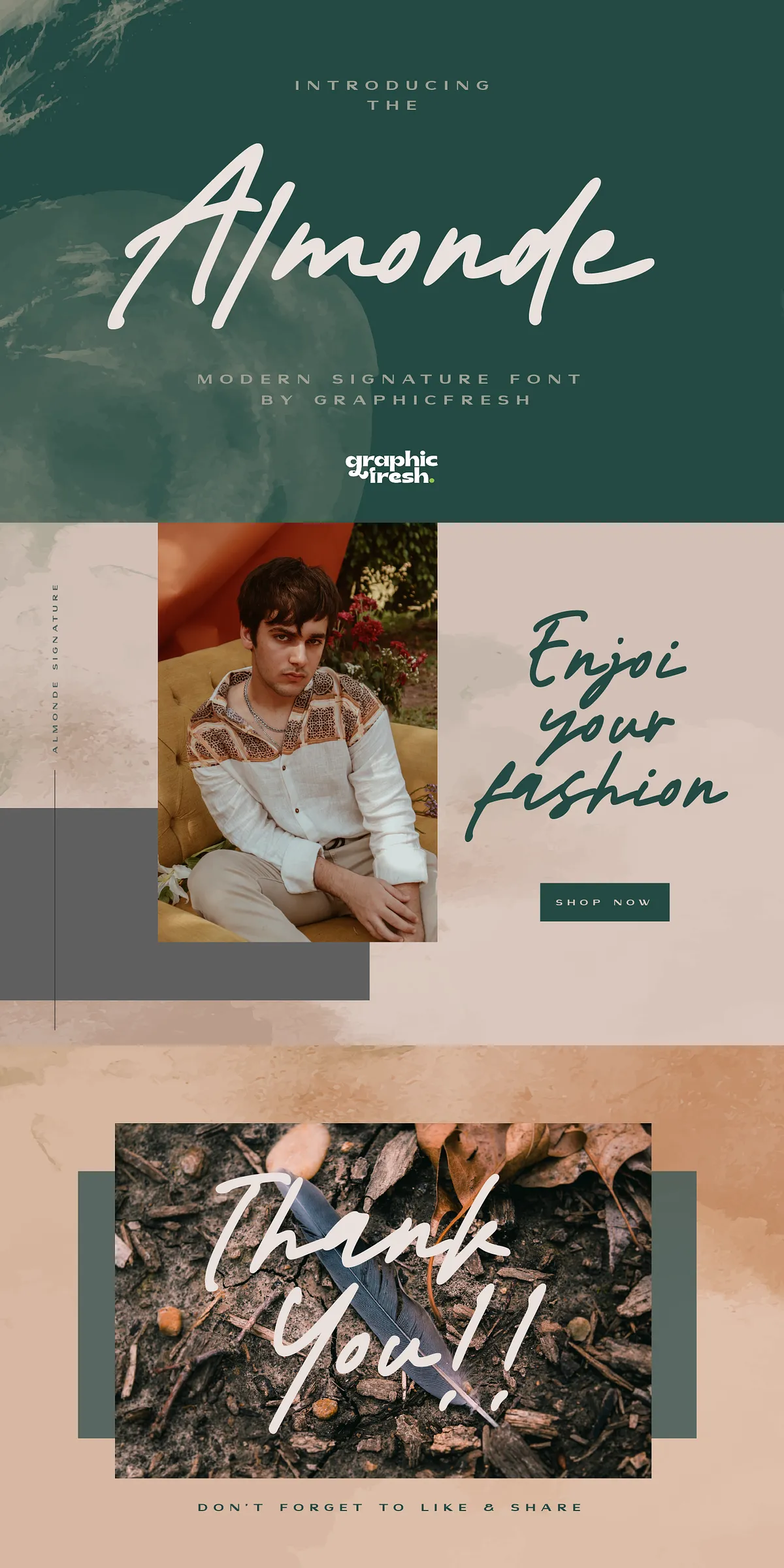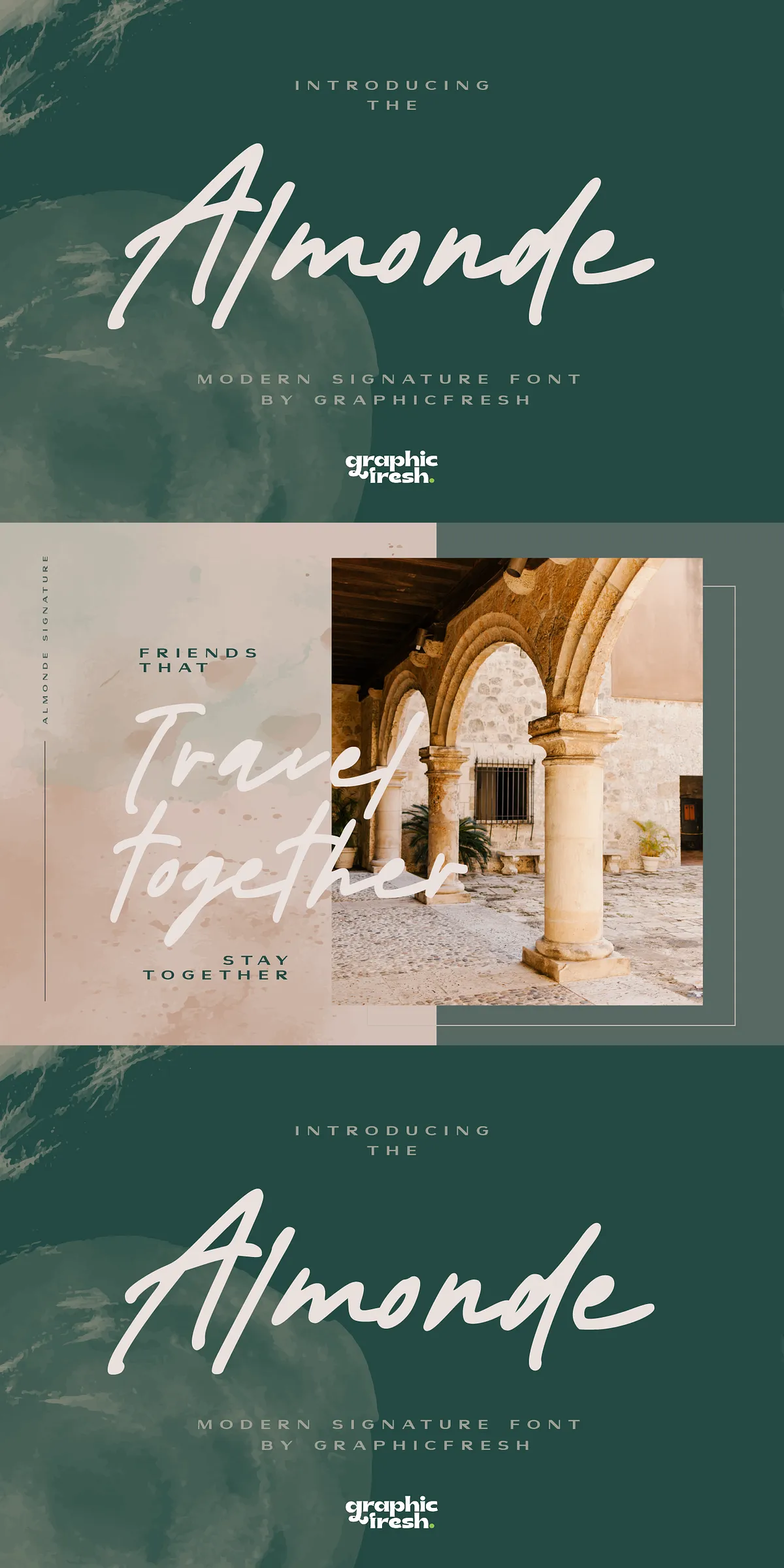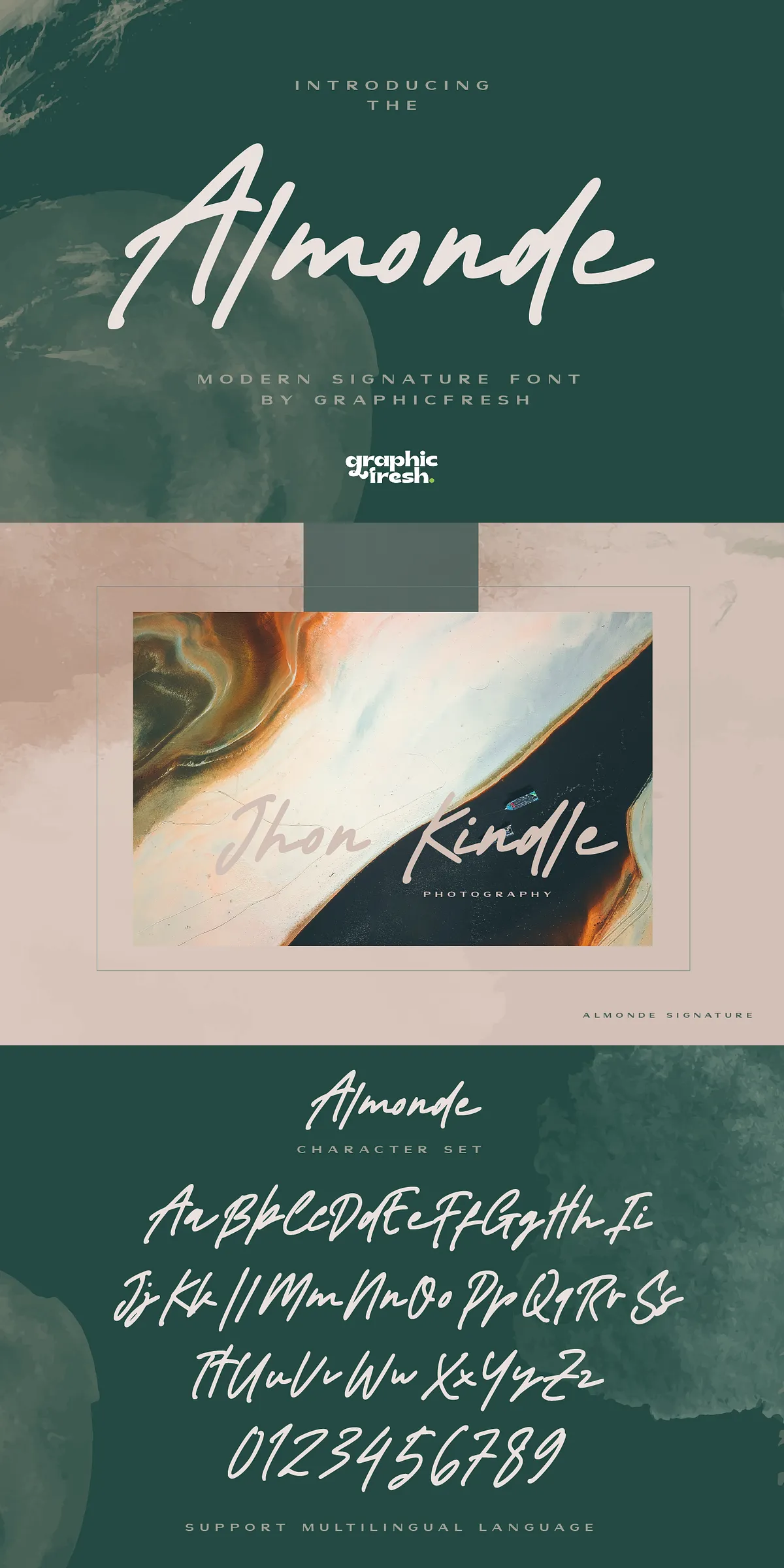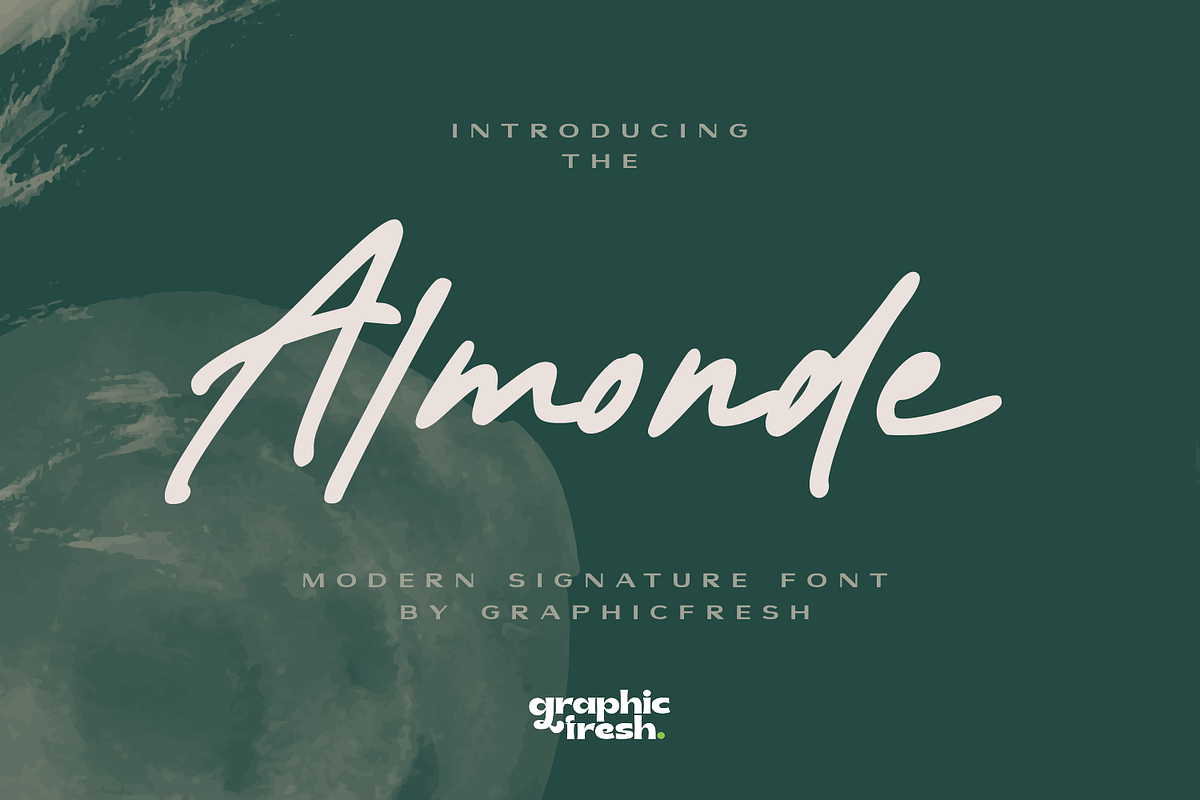
Almonde – Modern Signature Font
Introducing Almonde Font — a bold, refined, and effortlessly stylish modern signature font that transforms any project with sophistication and confidence. Whether you’re crafting a luxury brand identity, designing a timeless wedding invitation, or creating high-impact posters and business materials, Almonde delivers a flawless combination of minimalism, grace, and modern flair. Its clean lines and fluid curves speak volumes without saying a word, making it the ideal choice for designers who demand distinction.
Why Almonde Stands Out: A Signature Style for the Modern Era
Almonde is not just another font — it’s a design philosophy in type form. Inspired by contemporary calligraphy and digital minimalism, it blends structure with softness, power with subtlety. Unlike generic fonts that blend into the background, Almonde commands attention with intentional spacing, perfectly balanced proportions, and a distinctive personality. Every letterform is crafted to feel both natural and intentional — like a signature that’s been written by hand but perfected by design.
Bold Simplicity, Timeless Appeal
Dive into a world where less is more. Almonde’s design thrives on clean, uncluttered aesthetics, yet it never lacks character. Its refined stroke weight and carefully tapered endings add just the right level of elegance to elevate even the most basic text. Use Almonde when you need:
• High-impact headlines and logos that leave lasting impressions
• Elegant wedding invitations and event announcements with a modern touch
• Professional business cards, letterheads, and branding materials
• Eye-catching posters, T-shirts, and merchandise designs
• Stylish quotes, social media graphics, and digital content
Powerful Features Built for Real-World Design
Almonde isn’t just beautiful — it’s functional. Packed with features that empower designers across all platforms, this font ensures consistent, polished results, no matter the medium.
Comprehensive Character Support & Multilingual Readiness
Almonde goes beyond the basics. It supports a wide range of international languages, including:
• English
• French
• German
• Spanish
• Italian
• Portuguese
• Dutch
• Swedish
• Polish
• Norwegian and more
Accents like é, ç, ñ, ü, and ß are properly rendered and spaced, ensuring professional typography across global content. No more broken text, inconsistent glyphs, or messy layouts — just flawless language support at every turn.
Endless Applications for Every Creative Vision
From wedding suites to startup branding, Almonde fits every mood, style, and purpose. It’s the font that makes you think twice — not because it’s complex, but because it’s so perfectly balanced.
Perfect For:
• Branding & Logotypes: Create memorable identities with clean, distinctive letterforms.
• Wedding Invitations: Add a modern romantic touch to save-the-date cards and programs.
• Print & Product Design: Ideal for mugs, calendars, tote bags, labels, and stationery.
• Editorial & Digital Media: Use in magazine layouts, blog headers, presentation slides, and social graphics.
• Streetwear & Apparel: Turn T-shirts and hoodies into wearable art.